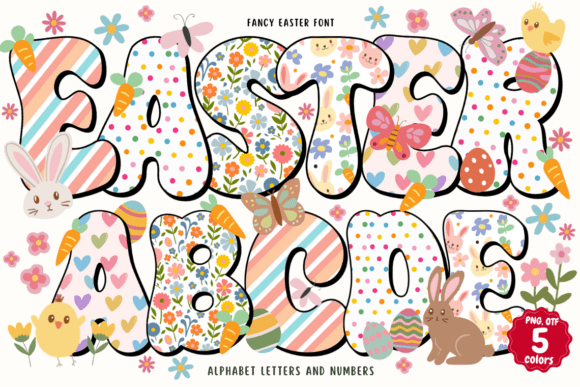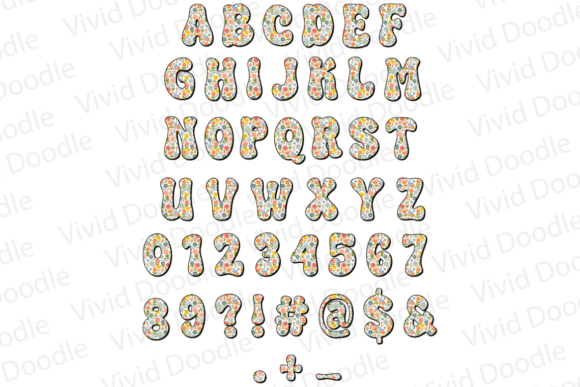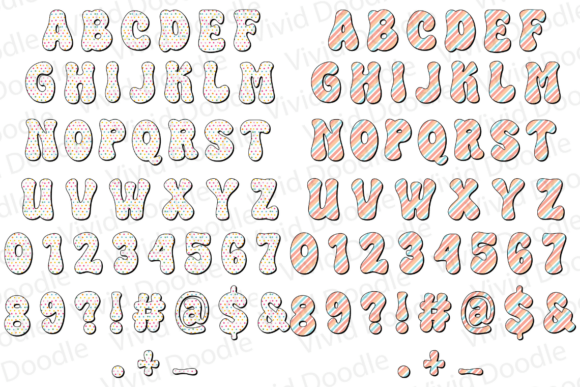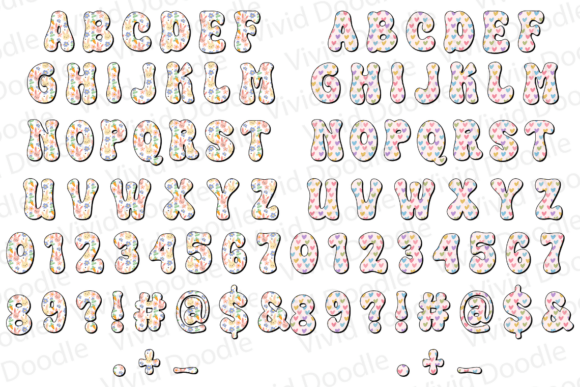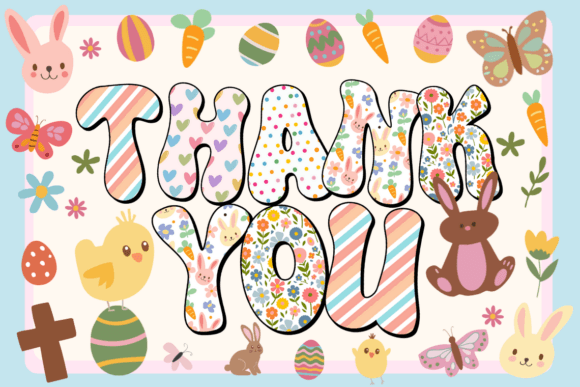
Fancy Easter Font: Add a Touch of Whimsy to Your Springtime Creations
As you sit at your desk, surrounded by scraps of paper, glue, and glitter, the excitement of Easter begins to build. You’re planning a special project, maybe a handmade card for a loved one or a colorful poster to decorate the classroom. But, you’re stuck on the perfect font to capture the essence of the season.
Enter Fancy Easter Font, a delightful and whimsical typeface designed to bring a smile to your face and a pop of color to your creations. With its playful curves and cheerful charm, this handwritten font is the perfect addition to your Easter-themed project. Whether you’re a seasoned designer or a creative enthusiast, Fancy Easter Font is a valuable tool to add to your arsenal, elevating your designs with its festive elegance.
- Character Set: The font includes a comprehensive set of characters, including uppercase and lowercase letters, numbers, punctuation marks, and Easter-themed symbols.
- Unique Characteristics: The Fancy Easter Font features a distinctive, hand-drawn design with intricate details and ornaments, making it perfect for adding a touch of whimsy to Easter-themed designs.
- Color Support: The font includes color variations, allowing users to create multicolored designs and add an extra layer of visual interest to their work.
Fancy Easter Font Review
Overall, I’m impressed with the Fancy Easter Font – it’s a great addition to any designer’s toolkit for Easter-themed projects. Here’s what works well:
- ✨ Unique and playful design: The font’s whimsical feel is perfect for adding a touch of Easter magic to your designs.
- ✨ Wide character set: The font includes a range of characters, from uppercase and lowercase letters to punctuation and symbols.
- ✨ Easy to use: The font is straightforward to apply to your designs, with no need for complicated styling or adjustments.
- ⚠️ Limited language support: The font may not be suitable for projects requiring a wide range of languages, as its character set is primarily focused on English.
- ⚠️ Not ideal for body text: While the font is perfect for headings and titles, it may be difficult to read in large blocks of body text due to its ornate design.
Overall, I’d recommend the Fancy Easter Font for designers looking to add a touch of Easter flair to their projects. While it may not be suitable for every design need, its unique design and easy use make it a great addition to any toolkit.
Use Fancy Easter Font to add a festive touch to your Easter-themed designs, invitations, and cards. You can also use it to create custom Easter egg designs, gift tags, or even a Easter-themed logo.
For the most effective use of Fancy Easter Font, keep the background simple and let the font be the focal point. Experiment with different font sizes and colors to create a unique and eye-catching design.
Alternatives to “Fancy Easter Font” for Designers
Great Vibes is a beautiful, cursive script font that is perfect for adding a touch of elegance and sophistication to your designs. It’s ideal for use in invitations, greeting cards, and other special occasion graphics. Compared to Fancy Easter Font, Great Vibes has a more refined and classic feel, making it a great choice for designers who want to add a bit of luxury to their work.
Pacifico is a stunning, handwritten font that is perfect for use in designs that require a relaxed, beachy vibe. It’s great for use in travel brochures, restaurant menus, and other graphics that need to evoke a sense of calm and tranquility. Compared to Fancy Easter Font, Pacifico has a more laid-back feel, making it a great choice for designers who want to create a soothing atmosphere in their designs.
Can I customize the Fancy Easter Font for my specific design needs?
Yes, the Fancy Easter Font is a highly customizable OpenType font that supports a wide range of features, including ligatures, swashes, and stylistic sets. You can use font editing software, such as Adobe Illustrator or FontLab, to customize the font to your specific design needs.